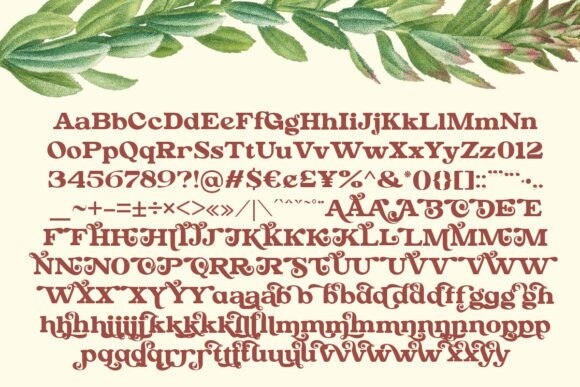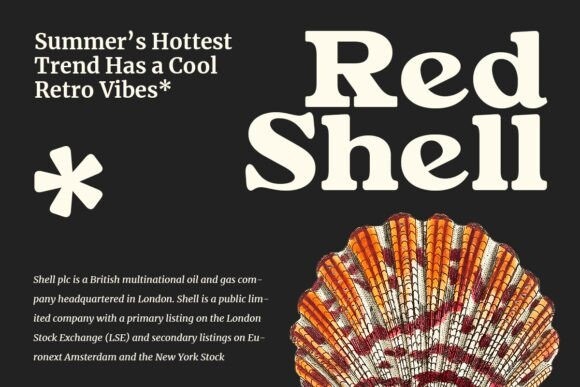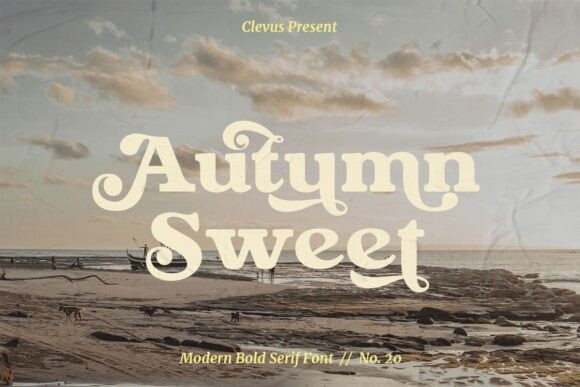
Autumn Sweet Font
Designer: Clevus
Autumn Sweet Font is a sweet and cursive serif font. This gentle font will look gorgeous on a variety of design ideas. It will add a joyful and romantic touch to each of your projects!